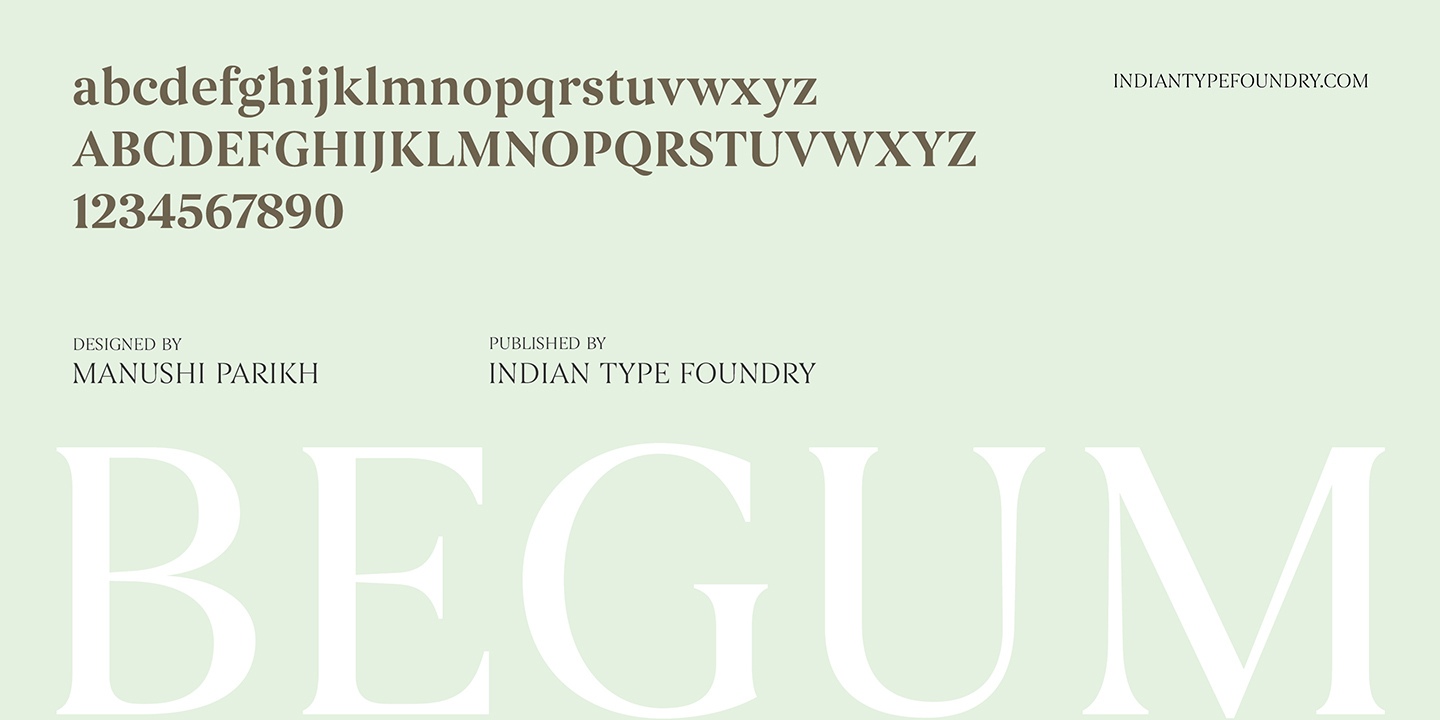
Begum Font
Begum Font is perfect for luxury jewelry branding, royal event invitations, high-end fashion campaigns, premium cosmetic packaging, aristocratic family crests, elegant hospitality signage, sophisticated cultural events, regal wedding materials, exclusive boutique identities, and distinguished lifestyle publications.
What makes Begum Font so exciting is its extraordinary ability to embody royal elegance and aristocratic sophistication through letterforms that seem to carry the grace and dignity of noble heritage and refined court traditions. This majestic typeface captures the essence of regal beauty and distinguished nobility with characters that radiate prestige, cultural refinement, and timeless royal elegance. The font's aristocratic design elements perfectly balance historical grandeur with contemporary luxury appeal, creating an indispensable tool that communicates royal authority, sophisticated taste, and distinguished heritage, making it essential for brands and projects that seek to evoke the magnificent elegance and refined nobility of royal traditions and aristocratic excellence.
Begum Font comes in multiple font families including Regular, Bold, Light, Italic, Bold Italic, Royal, Elegant, and Majestic variations. Each family member maintains the core aristocratic characteristics while offering different nobility levels and stylistic approaches to suit various regal design requirements.
The royal precision in Begum Font makes it particularly effective for luxury markets and prestigious organizations where conveying noble heritage and aristocratic quality is crucial for connecting with sophisticated clientele who appreciate authentic elegance and royal refinement. Its majestic letterforms work exceptionally well across all luxury applications, from exclusive jewelry collections to prestigious hospitality venues, maintaining consistent regal appeal and distinguished presence.
Luxury branding professionals recognize how Begum Font transforms ordinary communications into regal declarations of aristocratic excellence and noble sophistication. The typeface's distinguished character set includes special royal symbols, elegant decorative elements, and aristocratic features that enhance the overall regal atmosphere of any luxury-focused project.
For creative professionals serving luxury jewelry brands, exclusive hospitality, and aristocratic lifestyle companies, Begum Font serves as the perfect foundation for establishing memorable visual identities that capture the essential qualities of royal elegance, noble sophistication, and aristocratic excellence that define successful brands celebrating the timeless magnificence and refined nobility of royal heritage and distinguished cultural traditions.